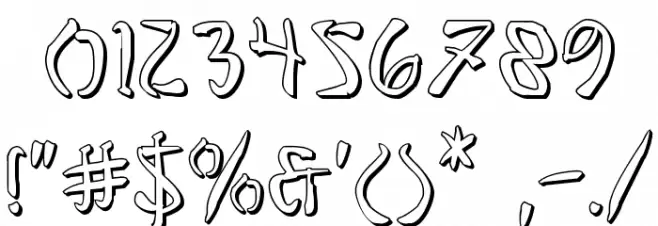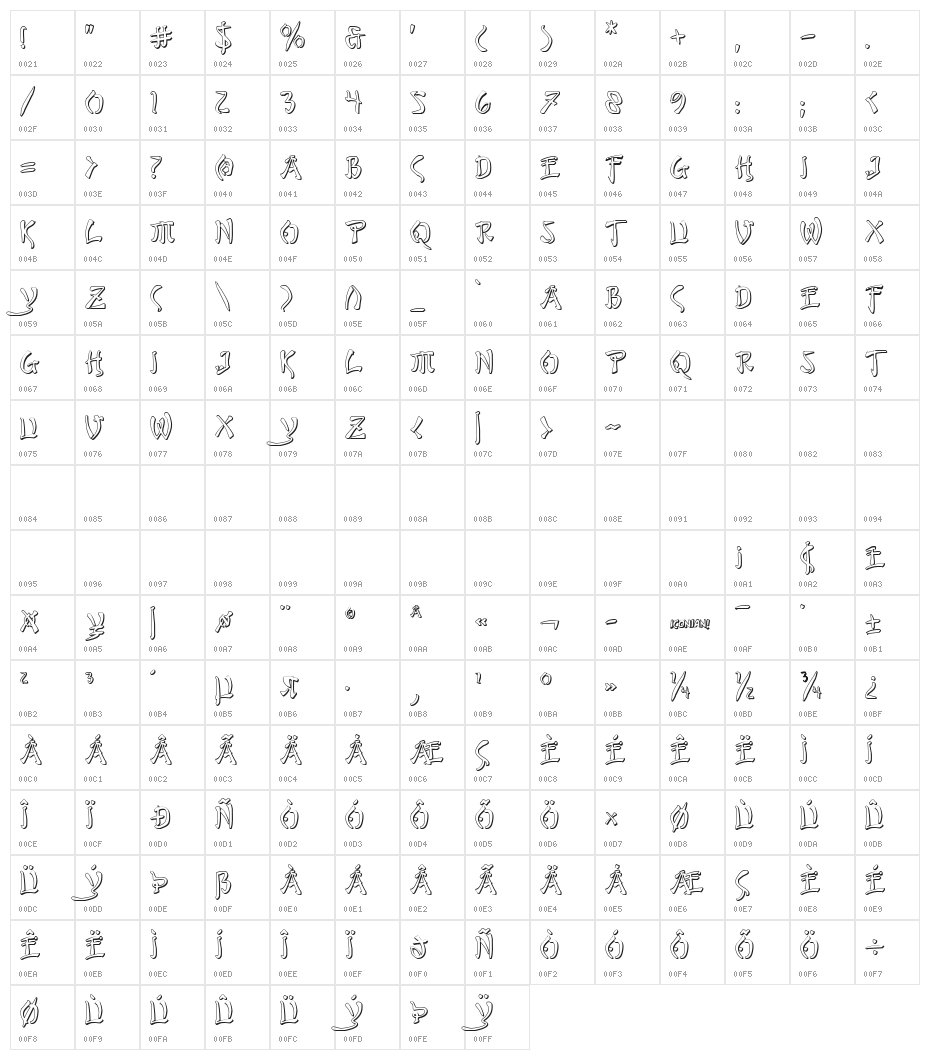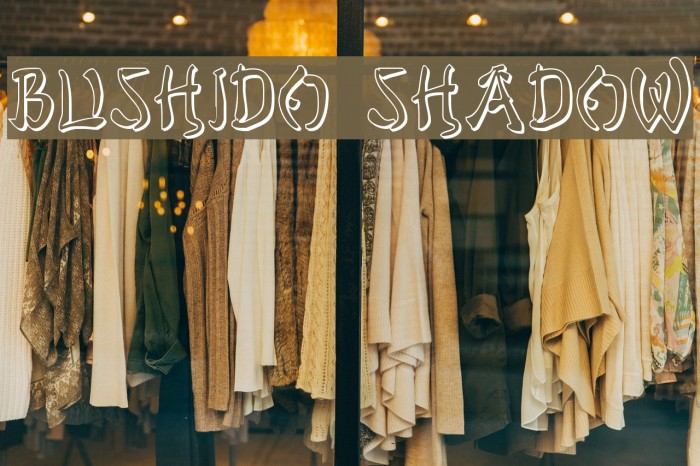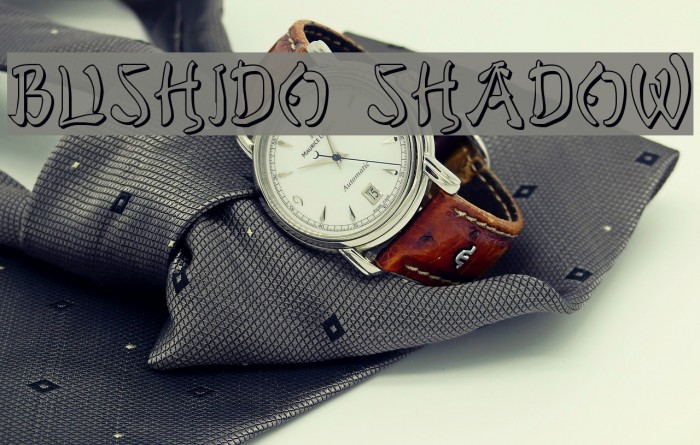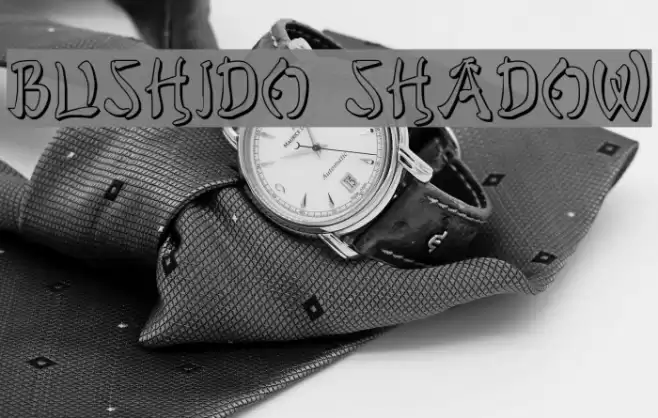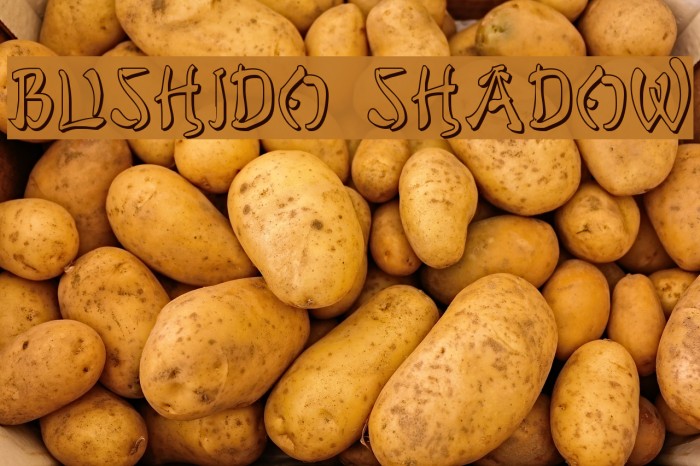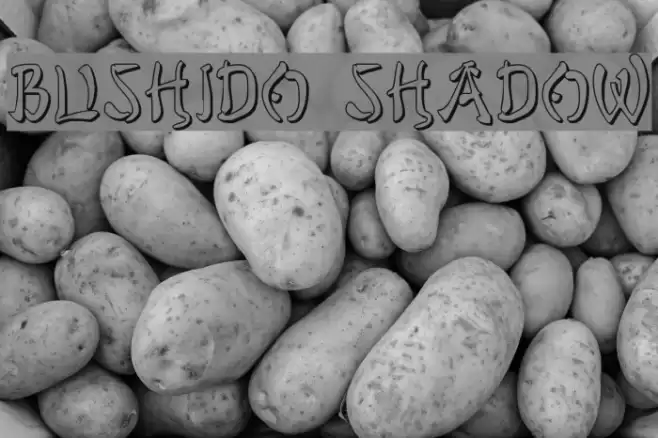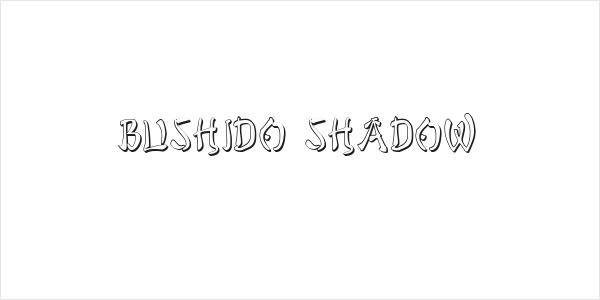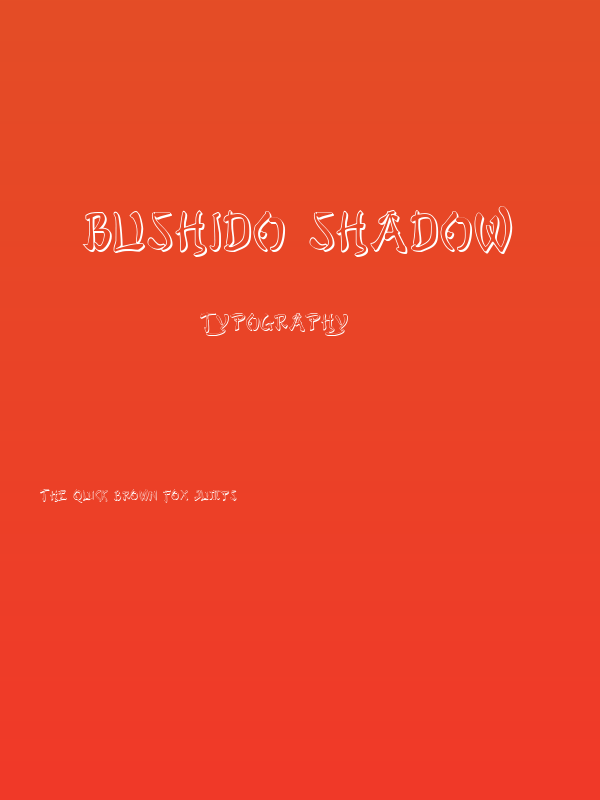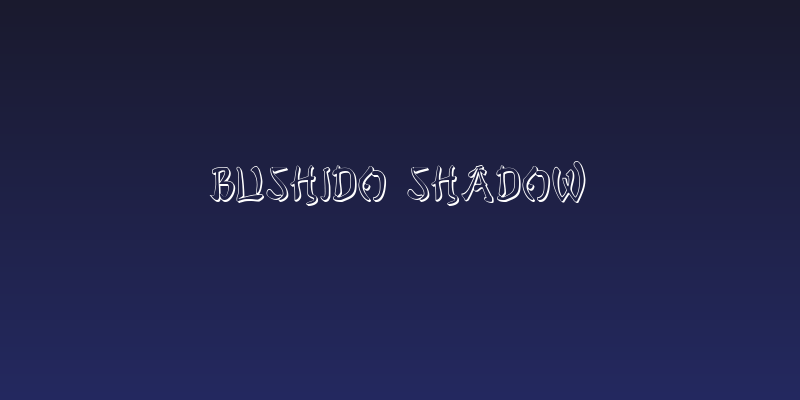
Bushido Shadow Font
Bushido Shadow Description
This font features a bold, dynamic style with a strong sense of movement and energy. The characters are designed with a brush-like appearance, giving them a hand-drawn, artistic feel. Each letter is unique, with varying stroke thicknesses and angles, creating a sense of individuality and creativity. The font has a shadow effect that adds depth and dimension, making it stand out on any page. The overall design is reminiscent of traditional calligraphy, yet it maintains a modern edge, suitable for contemporary designs. The numerals and special characters are crafted with the same attention to detail, ensuring consistency throughout the typeface.
| Proposed Projects | Ideal for projects that require a creative and artistic touch, such as posters, logos, and branding materials. It can also be used for headlines and titles that need to capture attention and convey a sense of movement. |